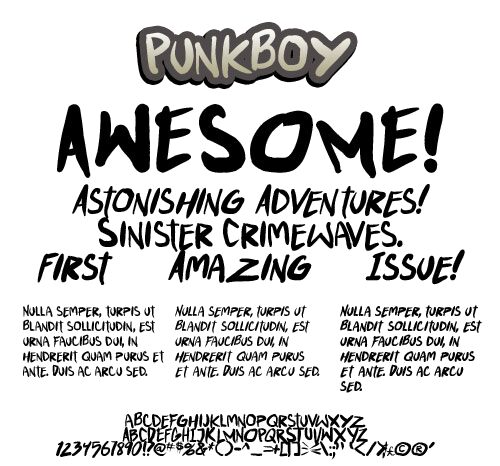
Punkboy Bold Italic by Andeh Pinkard of Teabeer Studios is a free brush script with forceful, sharply slanted capitals and rough, uneven painted edges. Its pointed cuts make every letter look fast and impatient.
Independent music labels and modern streetwear brands will find its raw speed well suited to an unapologetic visual identity. It can push concert posters, album covers, and skate merchandise toward a punk or hardcore setting without relying on distressed texture. The lettering speaks directly to audiences who respond especially to DIY graphics and hand-painted venue signage.